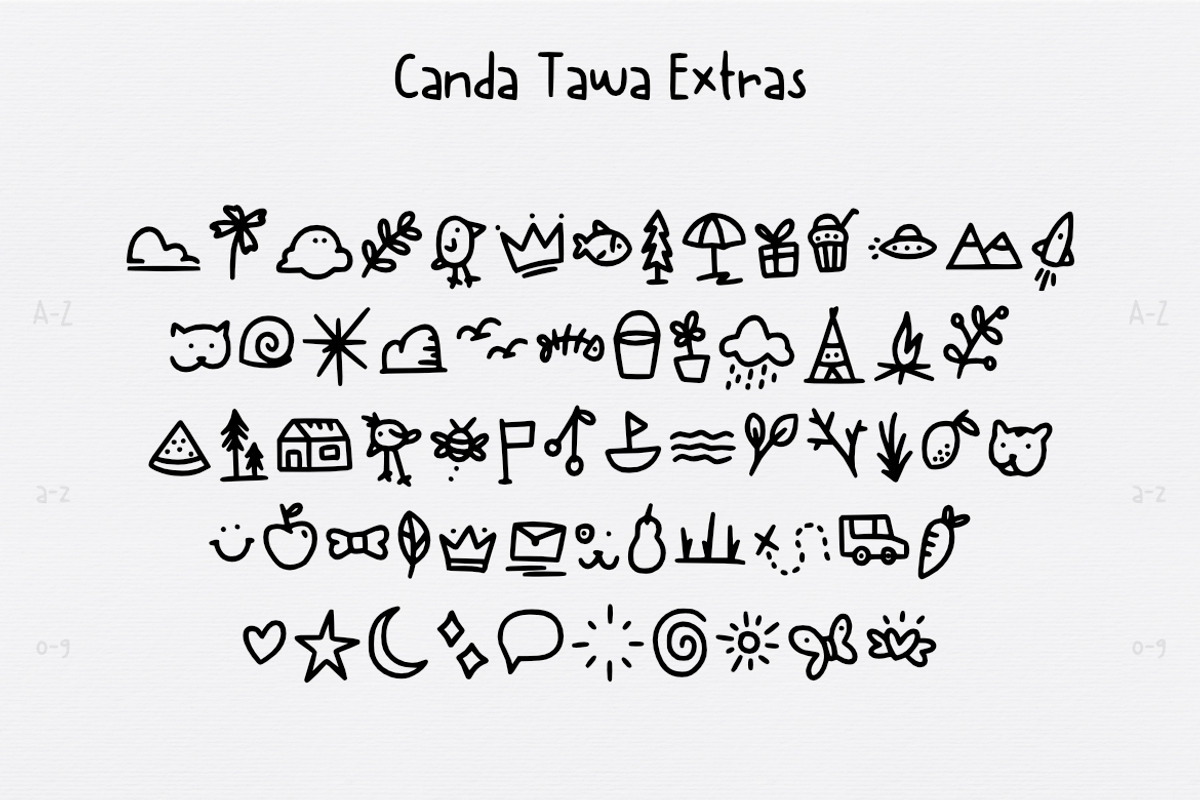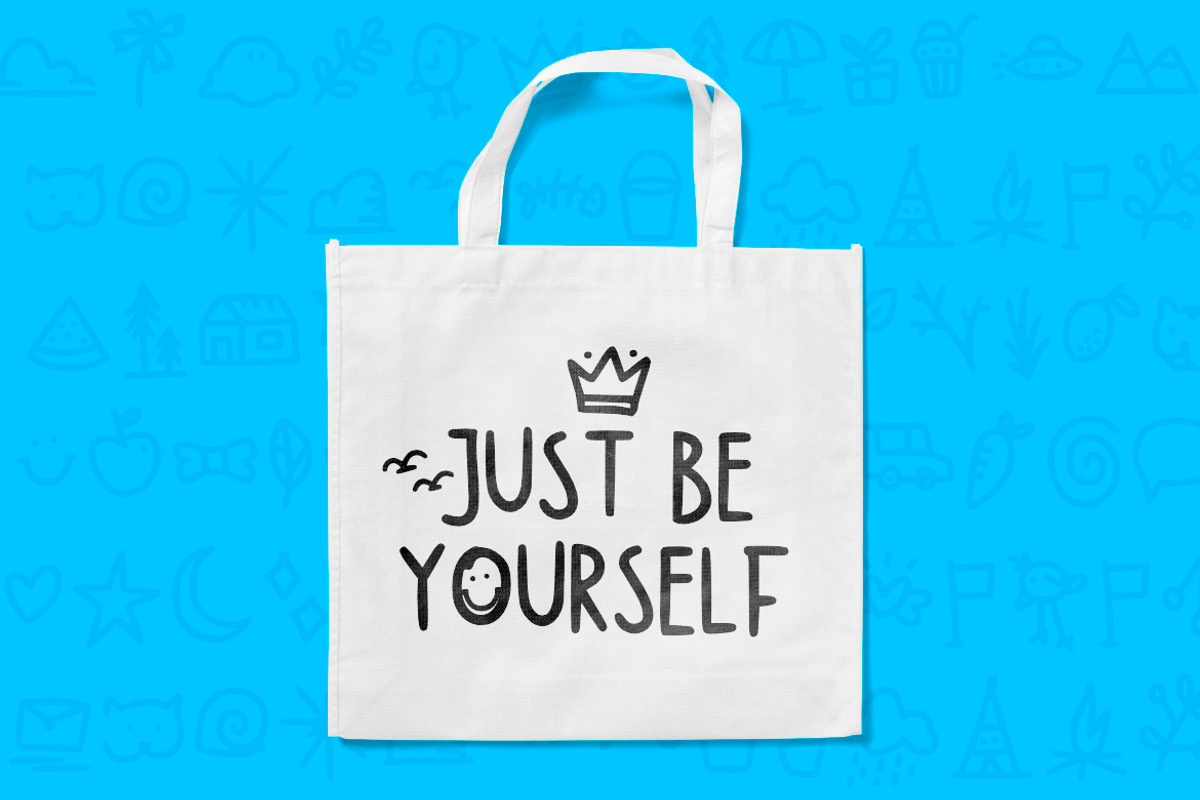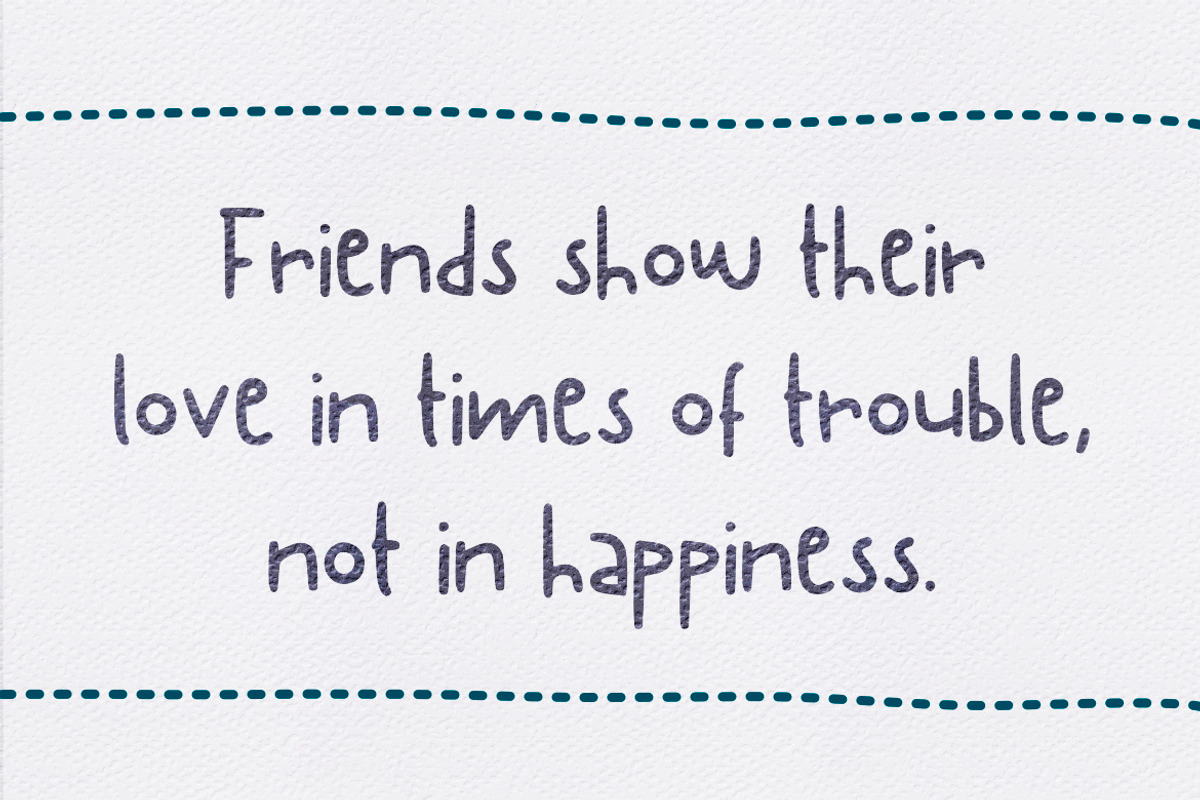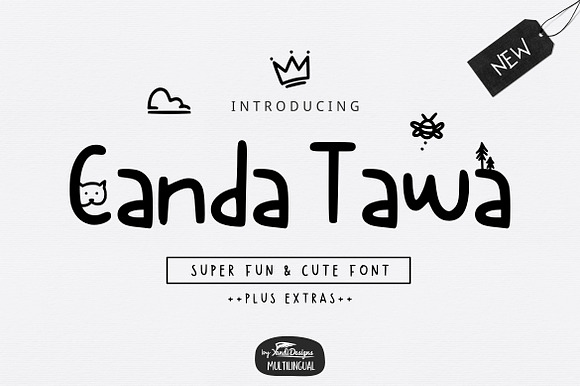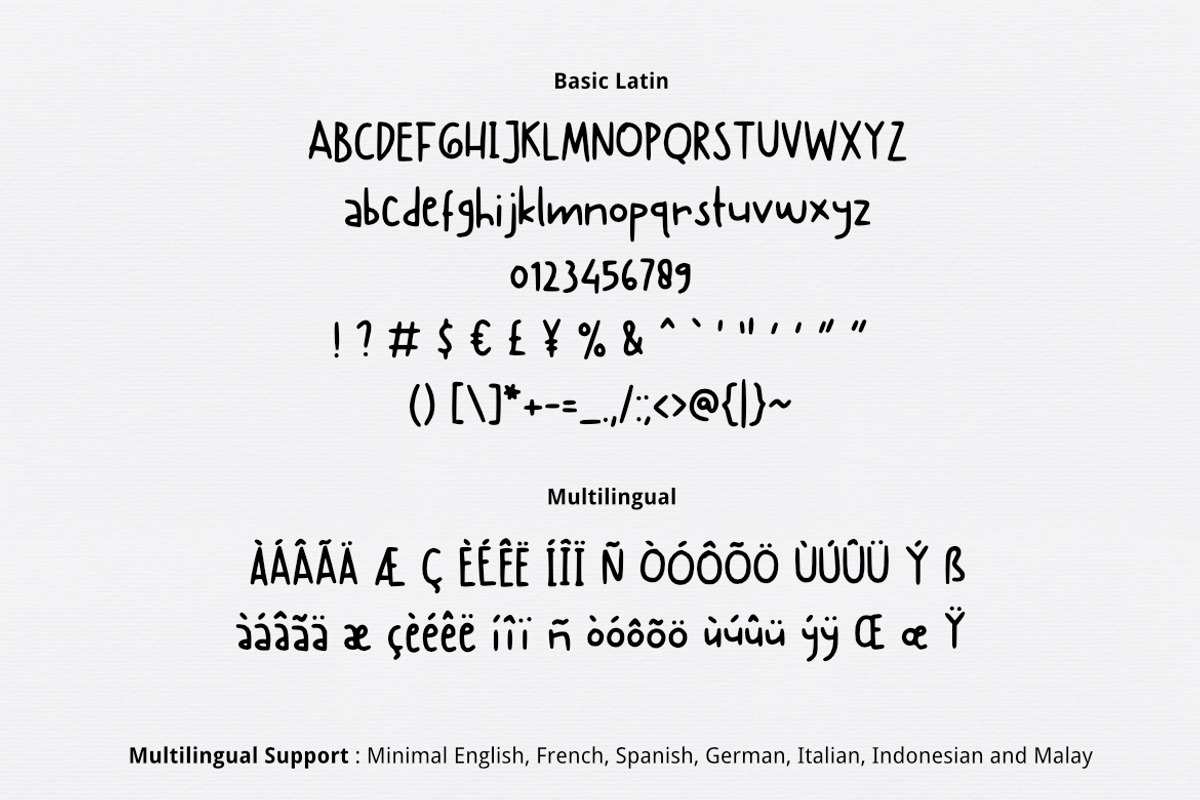
Canda Tawa Cute Font
Canda Tawa Font with Illustration
Simple cute font , suitable for many project, signature , quotes, logo , doodle, heading , title etc.
Basic Latin + Multilingual
Support : Minimal English , French, Spanish, Germany, Italian, Indonesian and Malay.